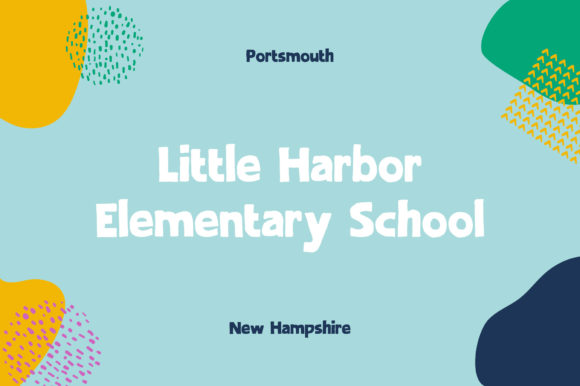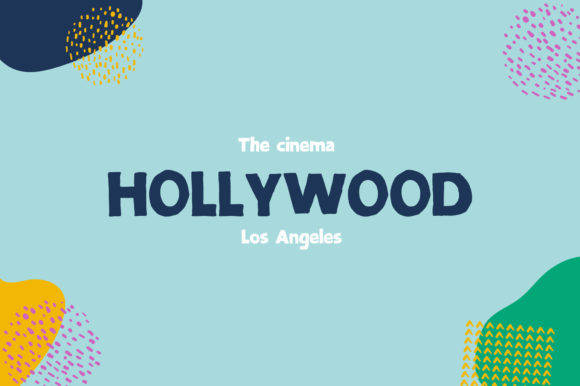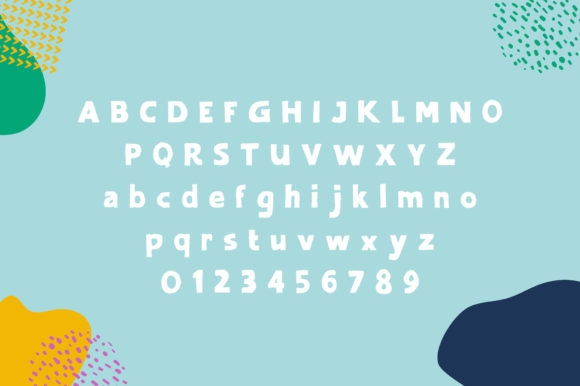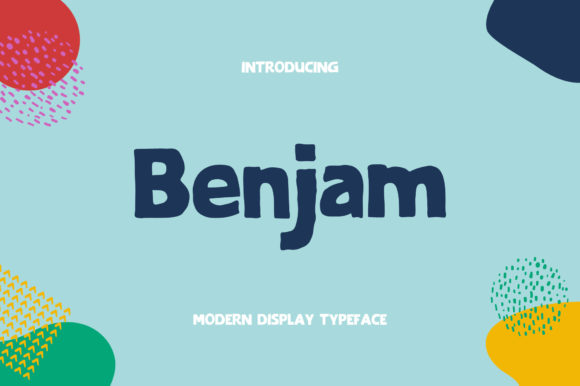
Introducing Benjam Font: The Ultimate Display Font for Bold Branding
In the world of typography, a font can make or break a brand’s identity. A well-designed font can elevate a brand’s visual appeal, convey its personality, and leave a lasting impression on its audience. If you’re a designer, craftsperson, or entrepreneur looking for a bold and eye-catching font to take your branding to the next level, look no further than Benjam Font.
What is Benjam Font?
Benjam is a bold and thick lettered display font, carefully crafted to make a statement. Its sturdy and robust design makes it perfect for any branding project that requires a strong visual presence. Whether you’re creating a logo, designing a t-shirt, or developing a creative product, Benjam Font is the ideal choice.
Key Features of Benjam Font
- Bold and Thick Lettering: Benjam Font features bold and thick lettering, making it perfect for headlines, titles, and short phrases.
- Highly Legible: Despite its bold design, Benjam Font is highly legible, ensuring that your message is conveyed clearly and effectively.
- Versatile: Benjam Font is versatile and can be used for a wide range of applications, from logos and branding to t-shirt printing and creative products.
- Easily Customizable: Benjam Font is easily customizable, allowing you to adjust its size, color, and style to suit your design needs.
Use Cases for Benjam Font
Benjam Font is perfect for a variety of design projects, including:
- Logo Design: Create a bold and memorable logo that makes a lasting impression on your audience.
- T-Shirt Printing: Design eye-catching t-shirts that stand out from the crowd with Benjam Font.
- Creative Products: Add a touch of personality to your creative products, such as mugs, phone cases, and tote bags.
- Branding and Advertising: Use Benjam Font to create bold and attention-grabbing headlines and titles for your branding and advertising campaigns.
Why Choose Benjam Font?
With so many fonts available, why choose Benjam Font? Here are just a few reasons:
- Unique and Distinctive: Benjam Font is a unique and distinctive font that will set your brand apart from the competition.
- High-Quality Design: Benjam Font is designed with high-quality and attention to detail, ensuring that it looks great in any design project.
- Easily Readable: Benjam Font is easily readable, even at small sizes, making it perfect for a wide range of applications.
Tips for Using Benjam Font
Here are a few tips for using Benjam Font effectively:
- Use it Sparingly: Benjam Font is bold and attention-grabbing, so use it sparingly to avoid overwhelming your design.
- Pair it with Other Fonts: Pair Benjam Font with other fonts to create visual interest and add depth to your design.
- Experiment with Colors: Experiment with different colors to find the perfect combination that works for your brand.
In conclusion, Benjam Font is a bold and thick lettered display font that’s perfect for any branding project that requires a strong visual presence. Its highly legible design, versatility, and ease of customization make it a great choice for designers, craftspersons, and entrepreneurs. Whether you’re creating a logo, designing a t-shirt, or developing a creative product, Benjam Font is the ideal choice. So why wait? Download Benjam Font today and take your branding to the next level!